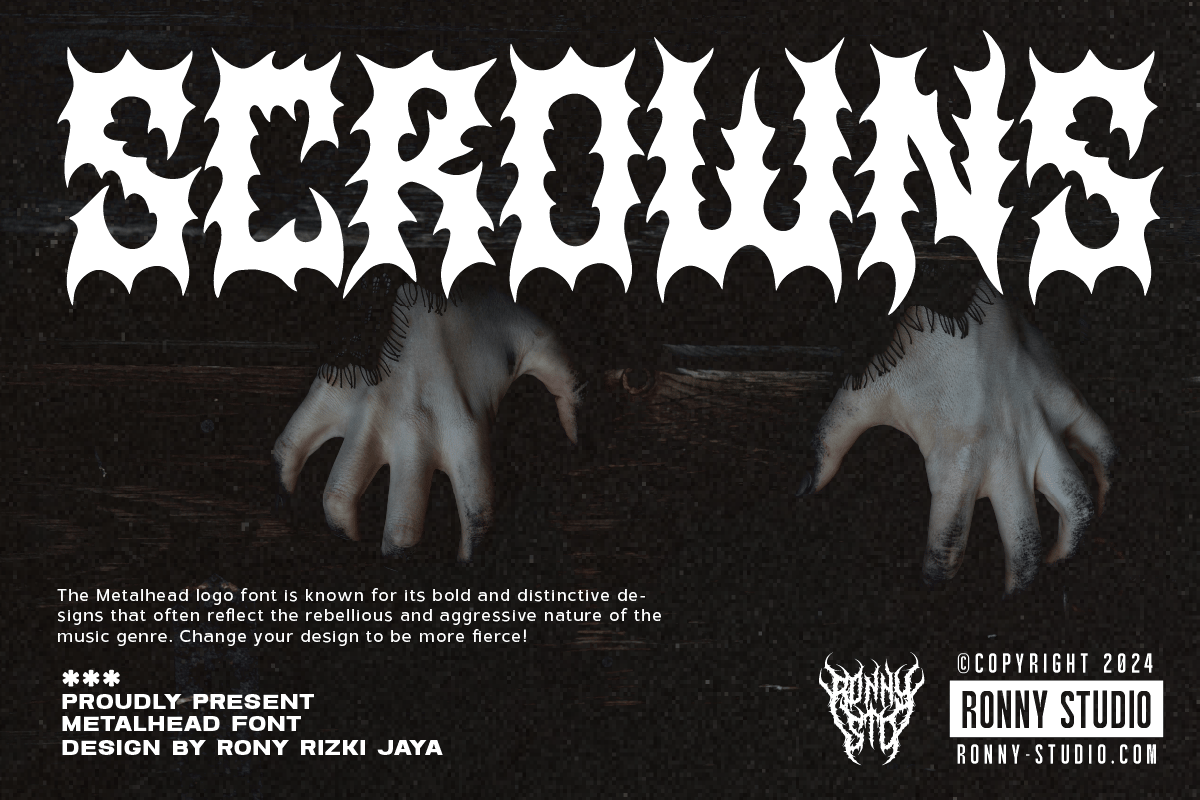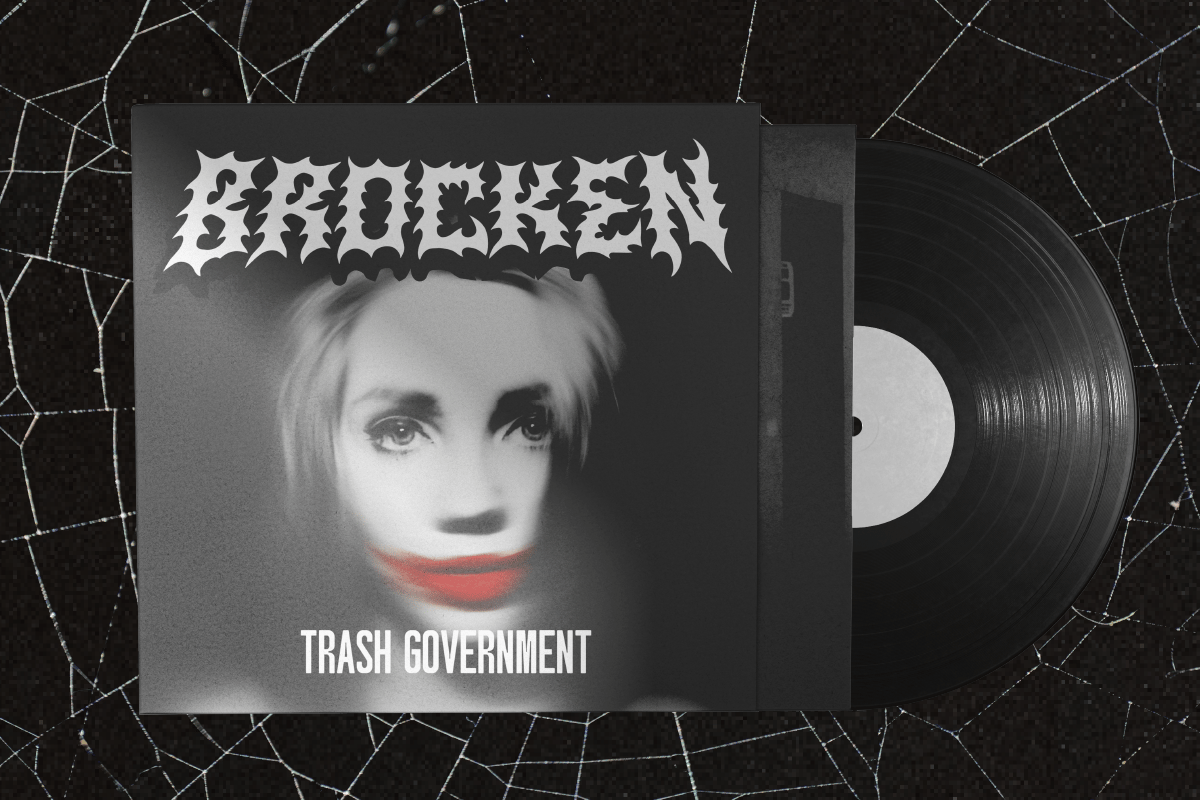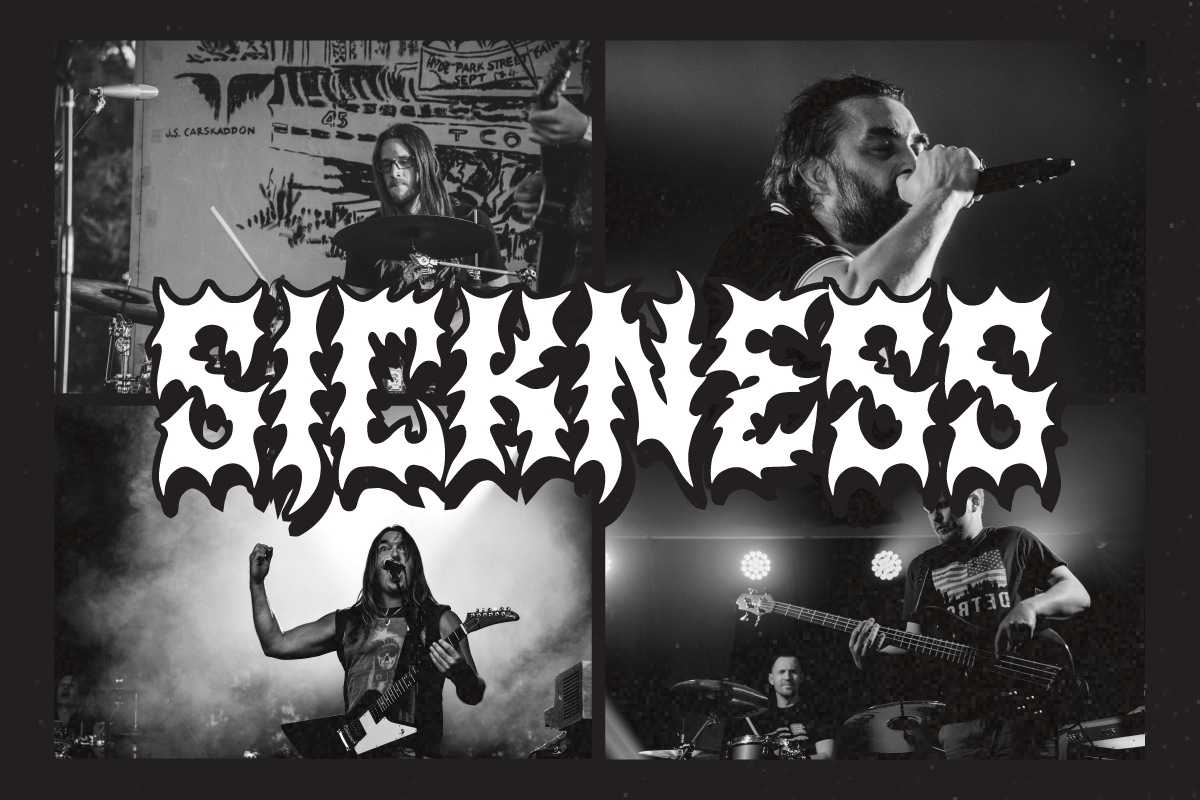
Scrowns – Metalhead Font
Scrowns is a metal logo font through and through. Rony Rizki Jaya of Ronny Studio drew each letter with jagged spikes and drips along both edges, so a word set in it looks carved or burned rather than typed. The forms are heavier and more readable than a lot of black metal logos, which helps for album titles and merch.
Best uses for Scrowns
• Metal and hardcore band logos
• Album and EP covers
• Horror film and Halloween posters
• Band T-shirts and patches
• Gaming clan logos
Scrowns needs a plain partner for gig details and track lists. Oswald is tall and strong for dates and venues. Roboto Condensed works for small text. For a second gothic touch, Pirata One is readable in short lines.
How do I make a Scrowns logo look more custom?
Use the alternates and ligatures from the Glyphs panel, then convert the text to outlines and stretch or overlap a few spikes by hand. Most metal logos are finished this way.